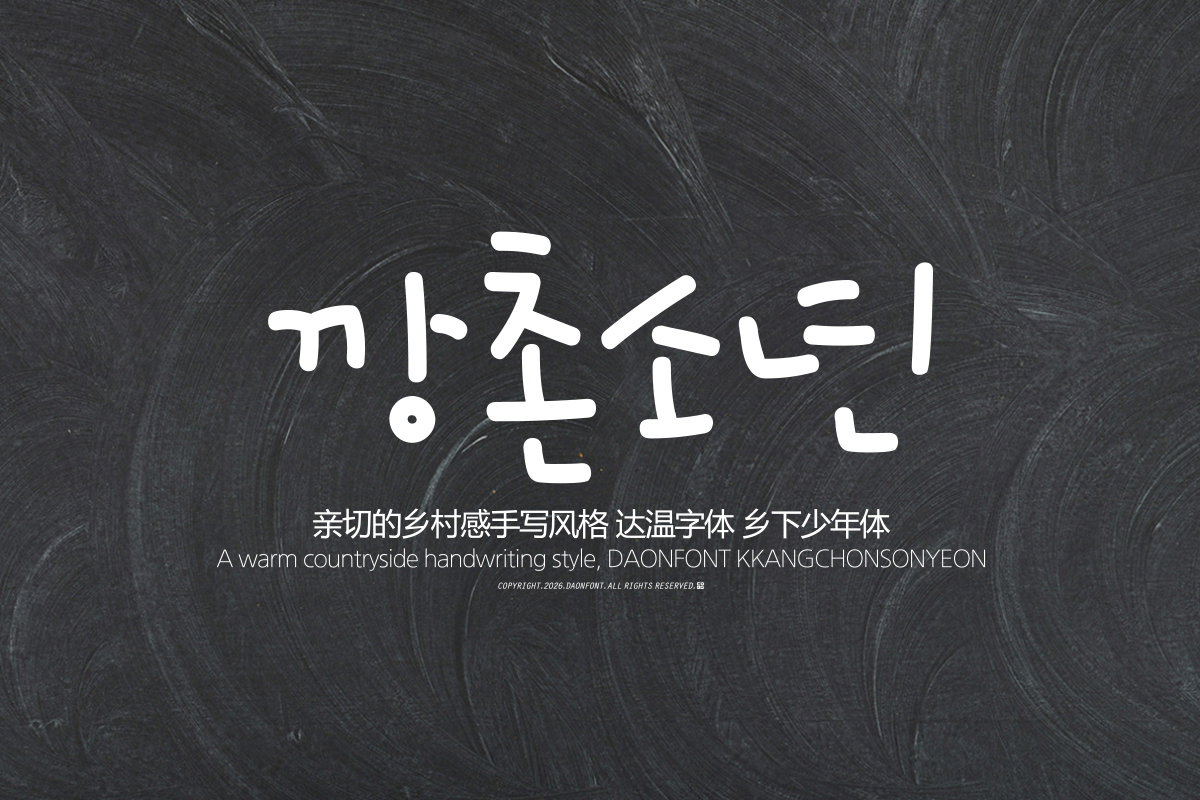
DAON KKANGCHONSONYEON(B)
'KKANGCHONSONYEON' is a Korean penmanship-style font that captures the sensibility of a pure and dreamy boy. 'KKANGCHONSONYEON' is particularly well-suited for friendly and emotional designs, such as letters, essays, heartwarming messages, and sentimental content. It allows you to create natural and pure-feeling typography in various projects, including card news, social media content, posters, video subtitles, and brand visuals.